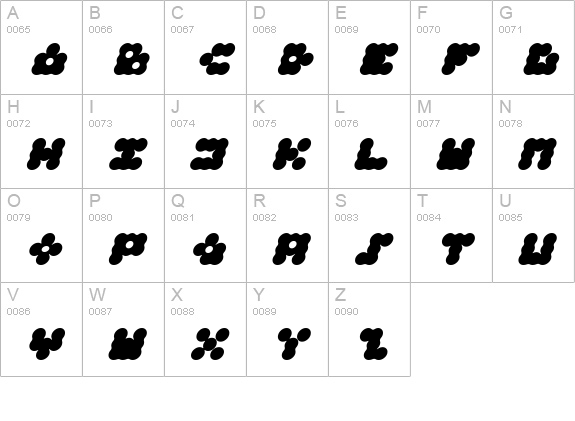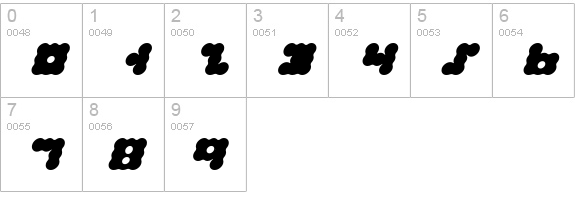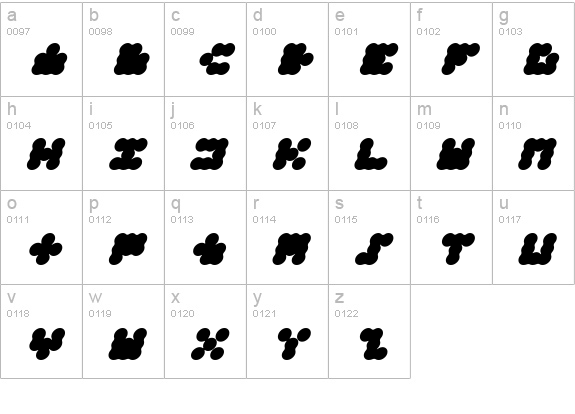
Apollo9 Italic Font Details
Apollo9 Italic is a distinctive, italic variant in the Apollo9 typeface family \xE2\x80\x94 well suited to design and typography projects.
Apollo9 Italic font is a stunning and elegant typeface that exudes sophistication and style. With its sleek and modern design, this font is perfect for adding a touch of class to any project. The italicized style adds a dynamic and fluid feel to the text, making it stand out and catch the eye. Best of all, Apollo9 Italic font is completely free to download at FontsMarket.com. Whether you're working on a design project, creating promotional materials, or simply looking to enhance your text, this font is a fantastic choice. Don't miss out on the opportunity to elevate your work with the beauty and versatility of Apollo9 Italic font. Download it today and let your creativity shine!